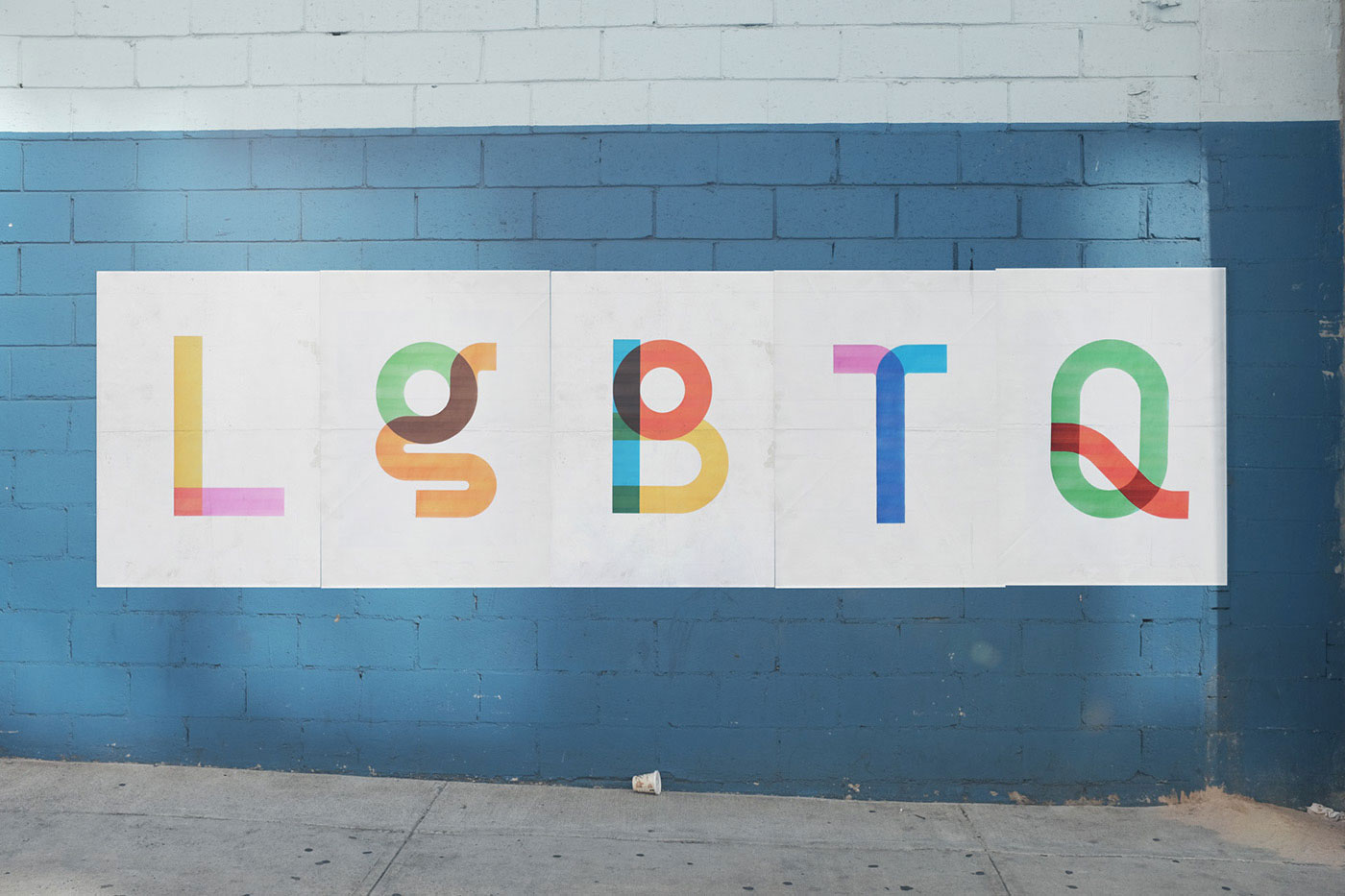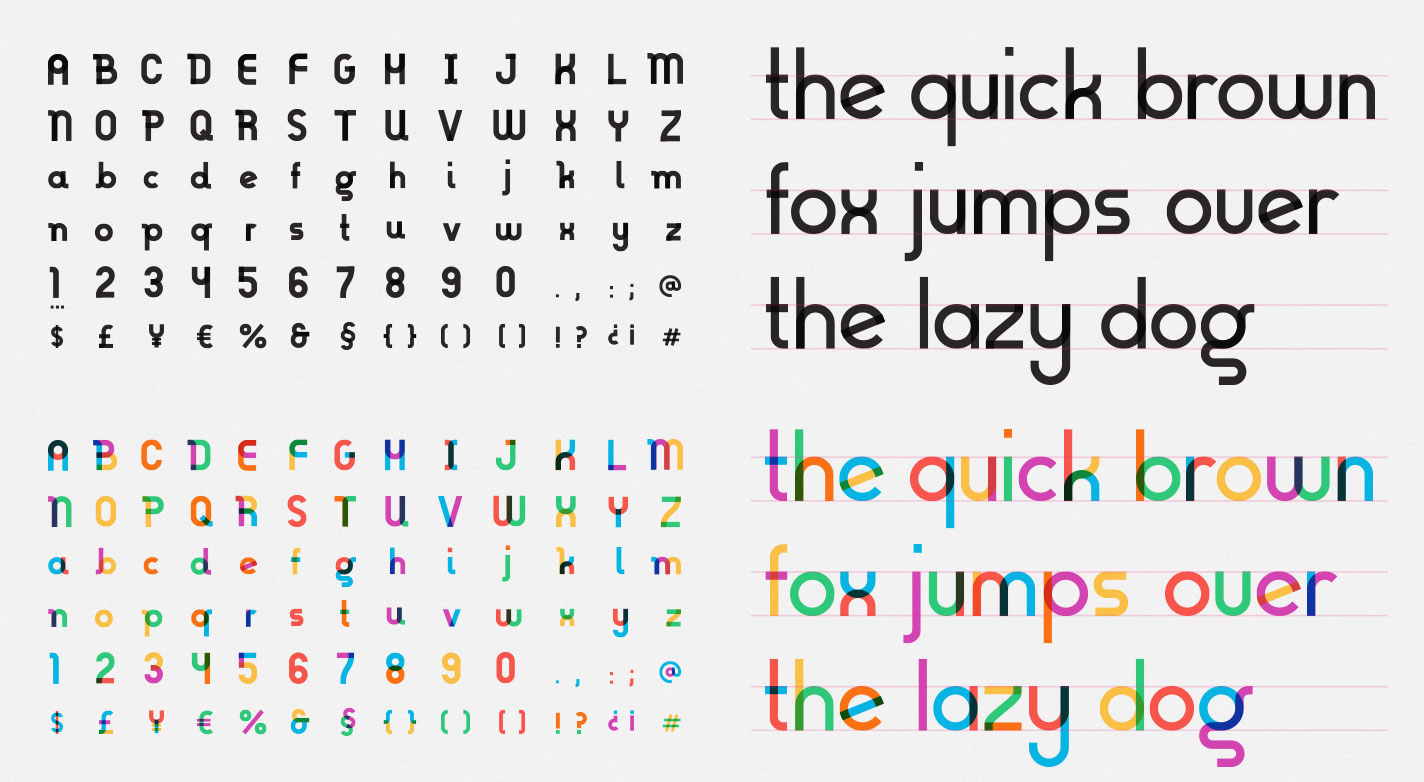
Rainbow flag designer commemorated with free font family
Gilbert comes as both a standard vector font and a colour font, and is perfect for protest banners. Get it now!
The iconic rainbow flag has been an instantly recognisable symbol of LGBTQ social movements since the 1970s. Sadly, its designer Gilbert Baker died on 31 March 2017, and to honour his memory NewFest and NYC Pride have partnered with Ogilvy & Mather and Fontself to create free fonts inspired by his work.
The appropriately-named Gilbert started out as a font designed for striking headlines and protest banner slogans, and is now being built into an entire family of weights and styles, all of which will be available for free from Type With Pride.